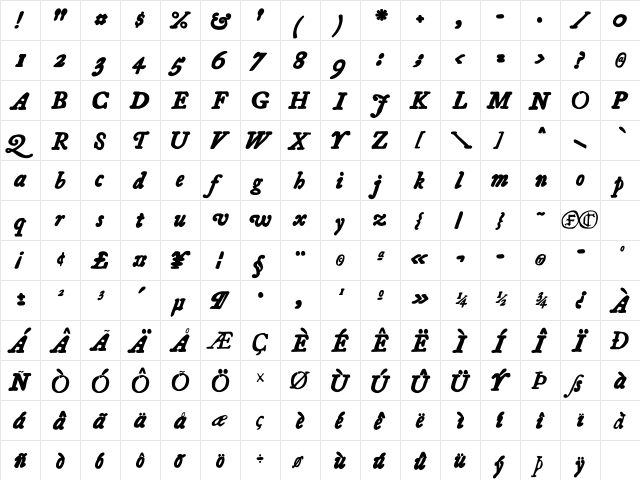
Essays1743 BoldItalic
| Designer | Based on the typeface in a 1743 English translation of the essays of Montaigne. PostScript/TrueType font designed by John Stracke. |
Design Context for Essays1743 Typeface
Essays1743 is a composed and adaptable typeface that performs quietly and consistently across a wide range of design contexts. The dynamic lean of this cut emphasises speed and emphasis in any layout. Its bold stroke weight gives it real presence on the page.